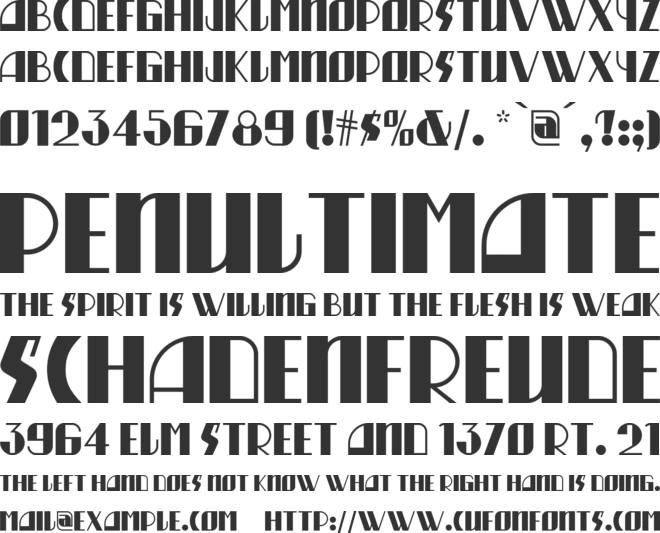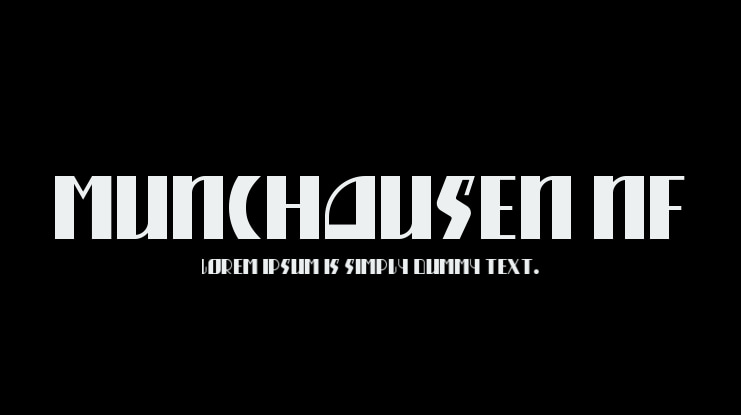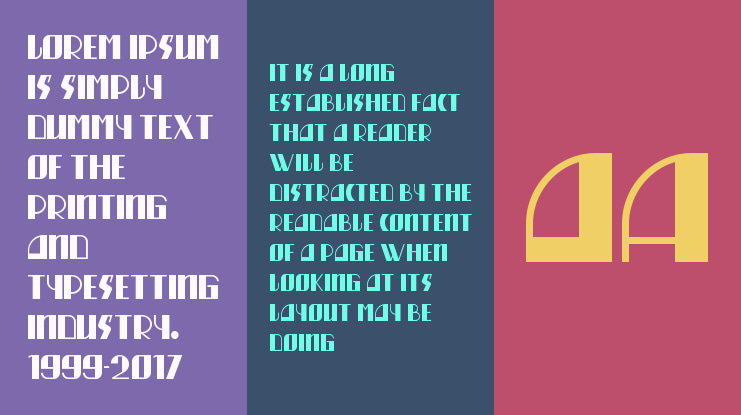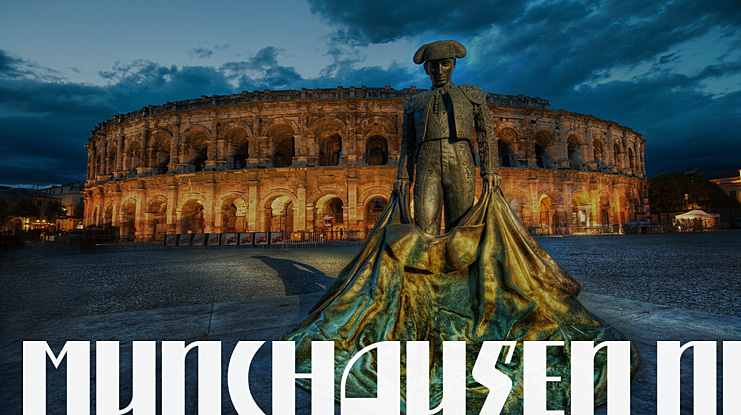
Munchausen NF Font
This jaunty face is based on poster lettering for a 1911 art exhibition, designed by Austrian postermeister Ludwig Jungnickel, and named for a very strange fictional German baron.